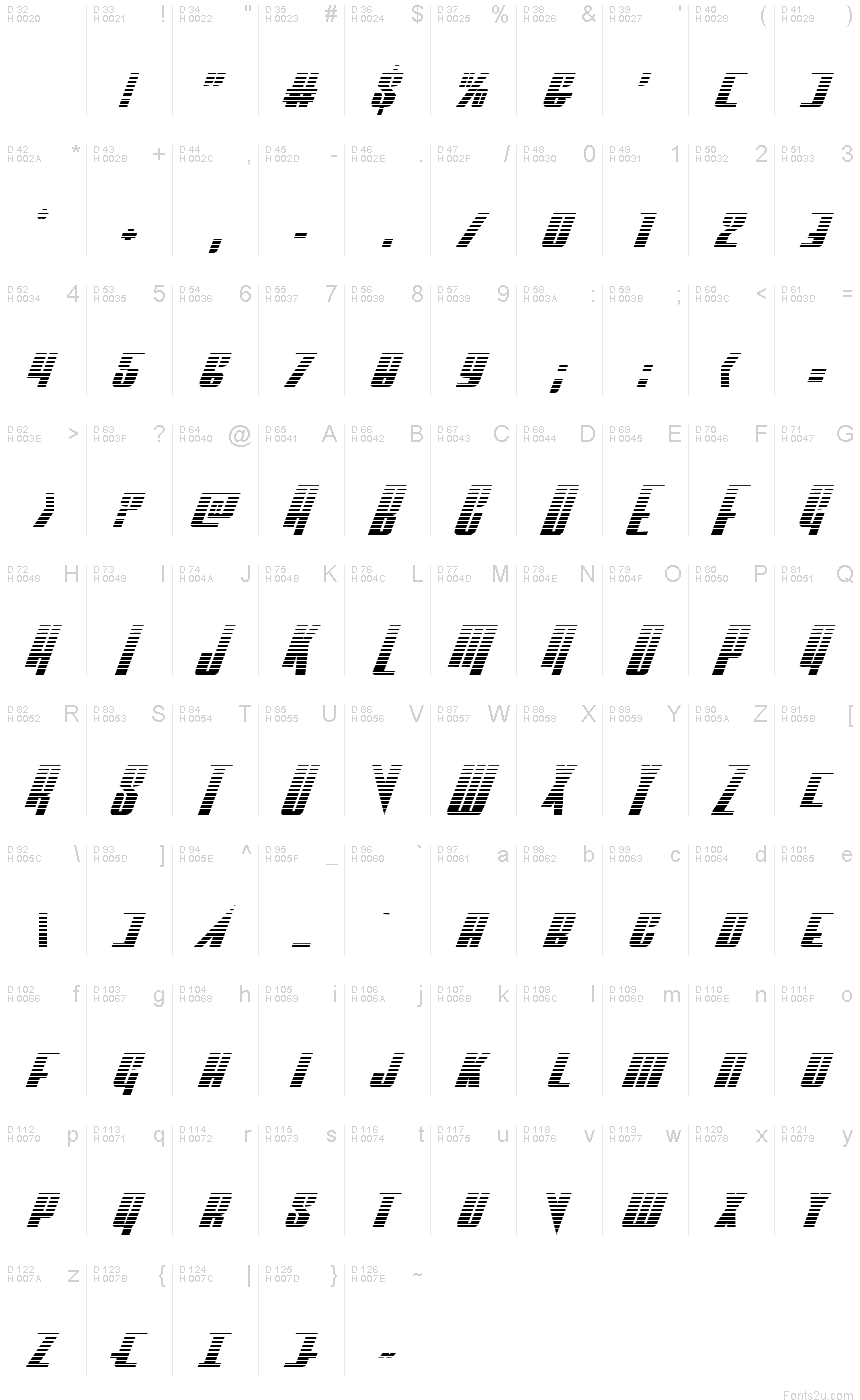
Vindicator Gradient Italic from Iconian Fonts is a free futuristic eroded display font with a broad, forward-driving stance. Its wide capitals are sliced into dense horizontal bands, with the breaks increasing toward the lower edges. The effect feels fast and mechanical.
Motorsport and science-fiction themes are the clearest fit, especially for posters, game graphics, and event branding. The steep slant and striped cutting suggest speed, scanning screens, and distorted broadcast signals rather than ordinary weathering. On merchandise, those repeated bands can extend into surrounding speed lines or signal patterns, turning the lettering into part of a larger, unified graphic motif.
Vindicator Gradient Italic